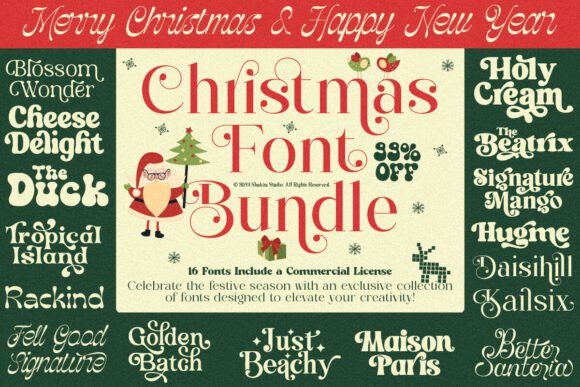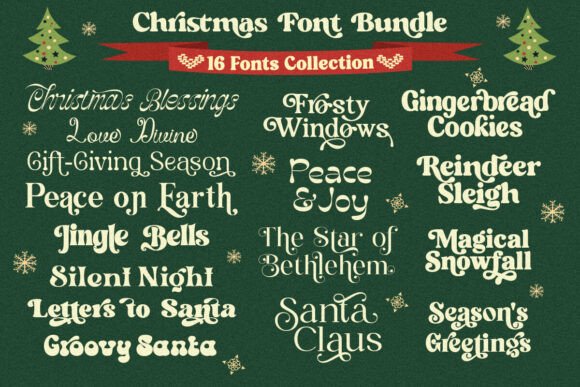
Christmas Bundle | Festive Holiday Font
Experience the unique personality of Christmas Bundle | Festive Holiday Font, a font designed for impact. Christmas Font Bundle | Festive Holiday Fonts for Crafts & Designs | Commercial Use | Cricut Fonts | Font With Tails
– Better Santeria
– Fell Good Signature
– Blossom Wonder
– Hugme
– Rackind
– Kailsix
– Cheese Delight
– Masion Paris
– Signature Mango
– The Beatrix
– Holy Cream
– Aminah
– The Duck
– Golden Batch
– Just Beachy